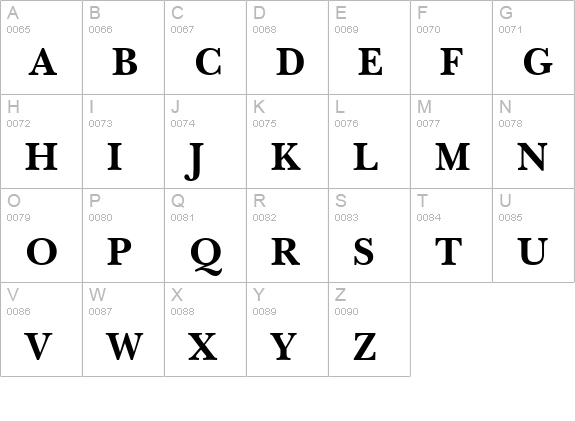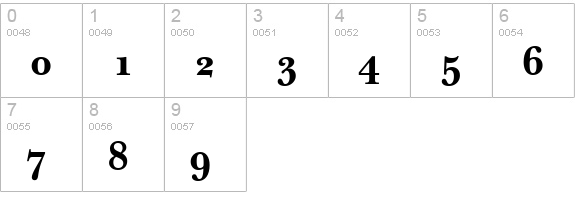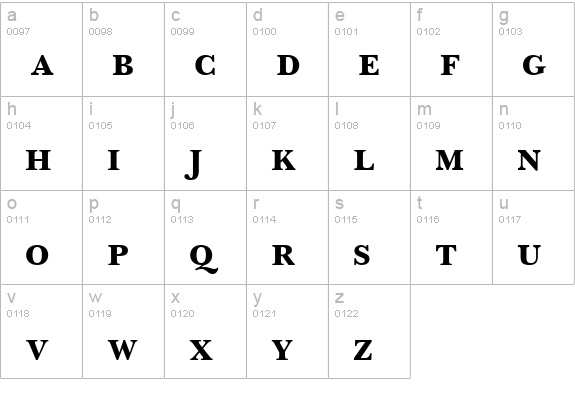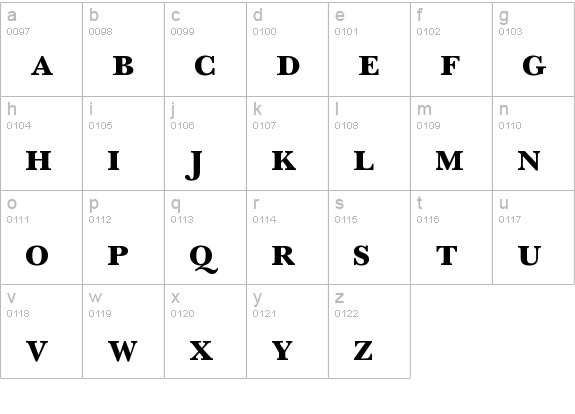
Baskerville Small Caps SSi Bold Small Caps Font Details
Baskerville Small Caps SSi Bold Small Caps is a strong, high-contrast variant in the Baskerville typeface family \xE2\x80\x94 well suited to headlines, attention-grabbing titles, and strong calls-to-action.
Baskerville Small Caps SSi Bold Small Caps font exudes sophistication and elegance with its sleek and modern design. The bold small caps add a touch of refinement to any text, making it perfect for professional documents, invitations, and branding materials. What sets this font apart is its versatility and readability, making it suitable for a wide range of design projects. Whether you're looking to create a classic and timeless look or a contemporary and stylish feel, Baskerville Small Caps SSi Bold Small Caps font is sure to deliver. The best part is that this font is available for free download at FontsMarket.com. So, you can easily access this high-quality font without any cost, making it a valuable addition to your font collection. Don't miss out on the opportunity to enhance your designs with the elegance and sophistication of Baskerville Small Caps SSi Bold Small Caps font!